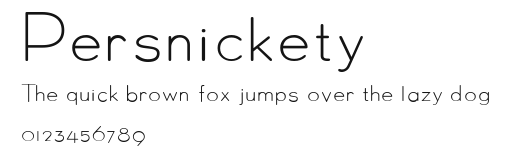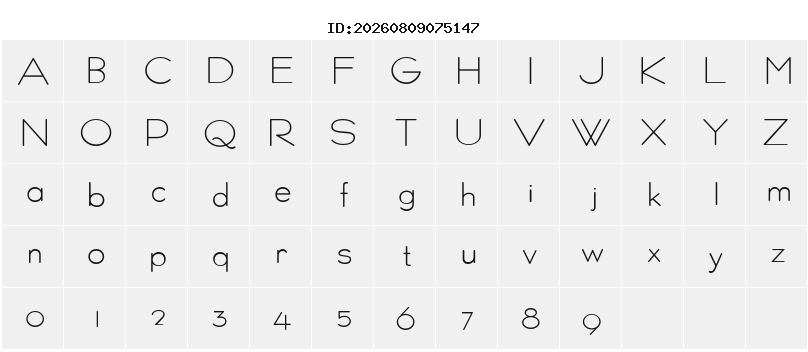
About Persnickety.ttf
Persnickety.ttf is a modern, elegant sans-serif font designed for ultimate readability and visual harmony. Perfect for branding, headlines, web design, and print materials.